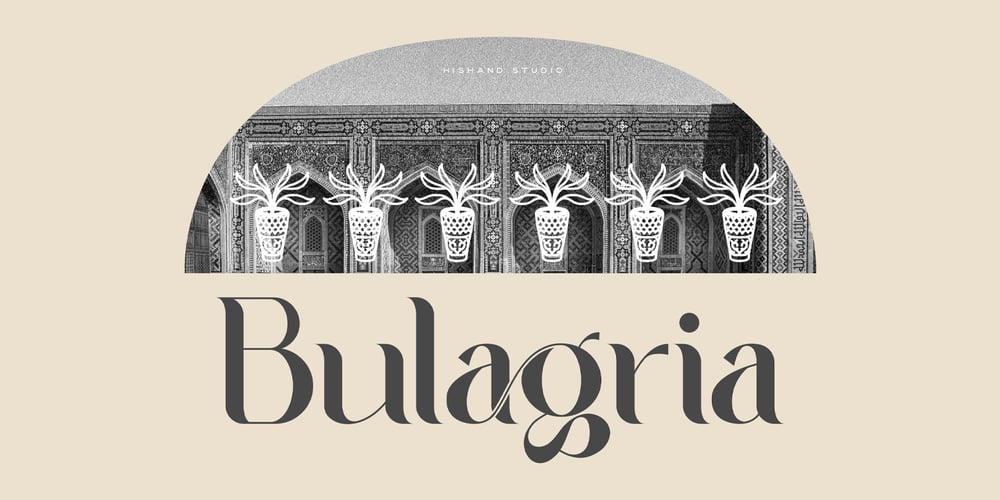
Bulagria Font Family was designed by Putu Dody Permana and published by Hishand Studio. Bulagria contains 3 styles and family package options. Bulagria is a beautifully crafted serif display font, blending modern elegance with a touch of tradition. Its unique letterforms and stylish ligatures make it perfect for creating standout designs, whether for branding, editorials, or special invitations.complete with ligatures alternates regular italic icon kerning multilingual support